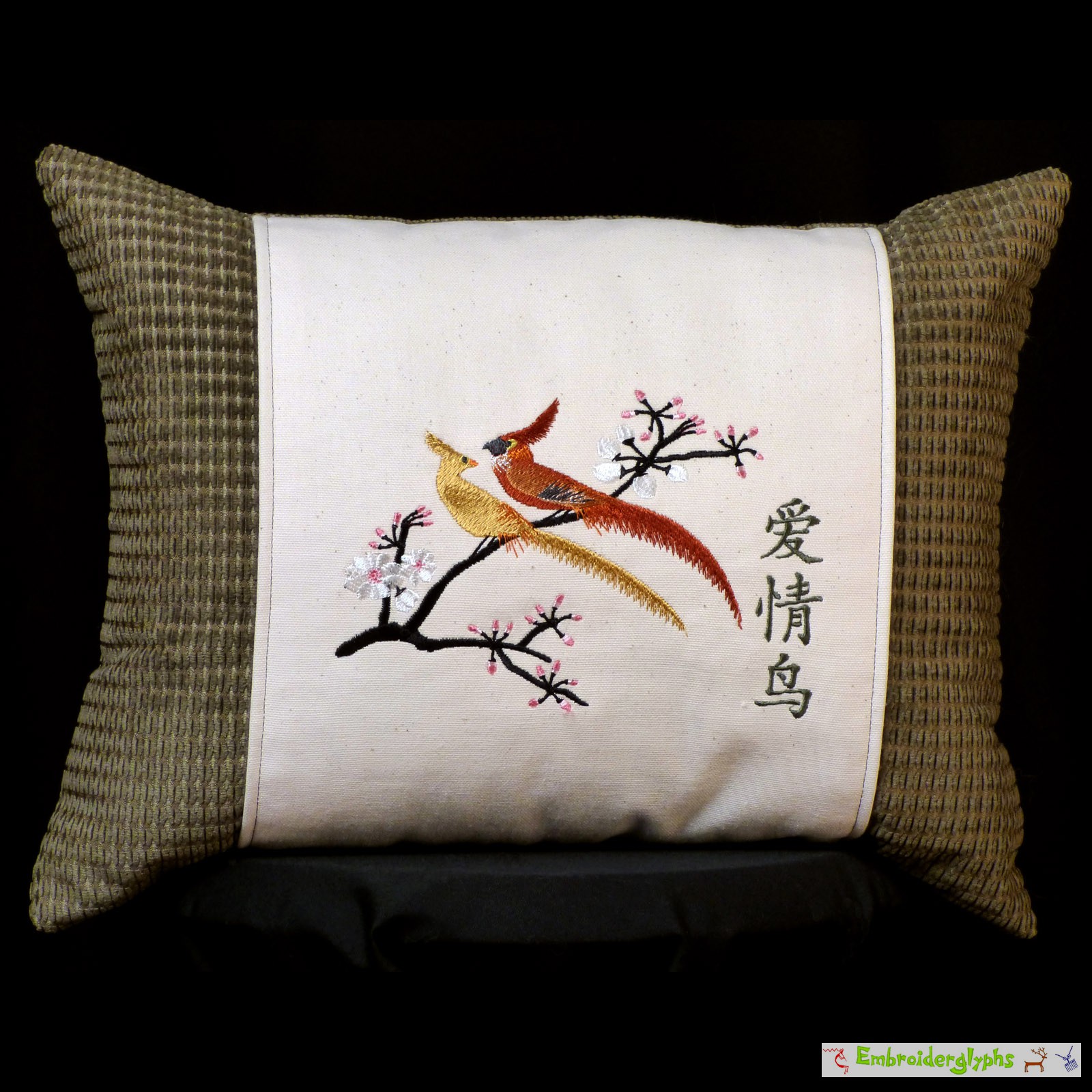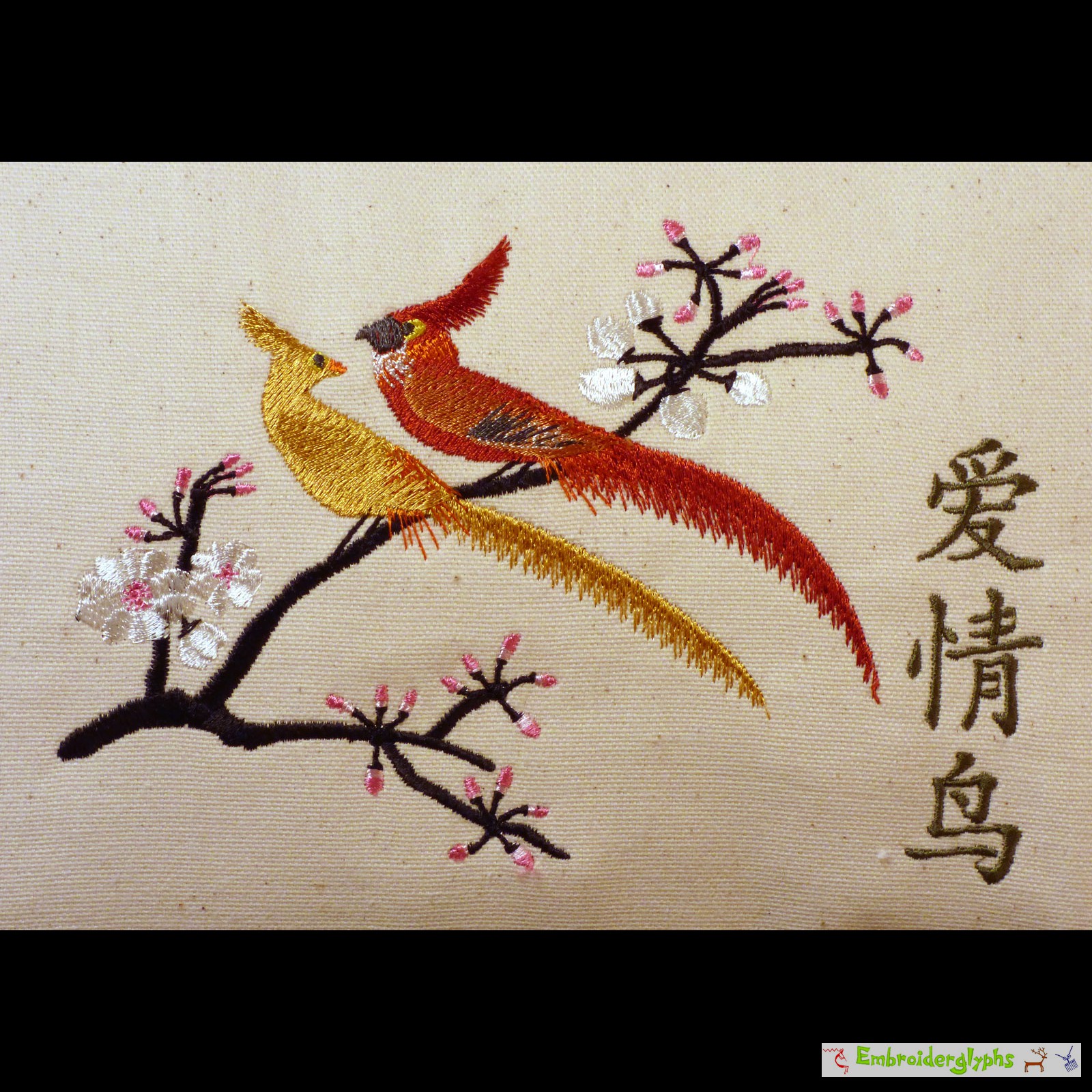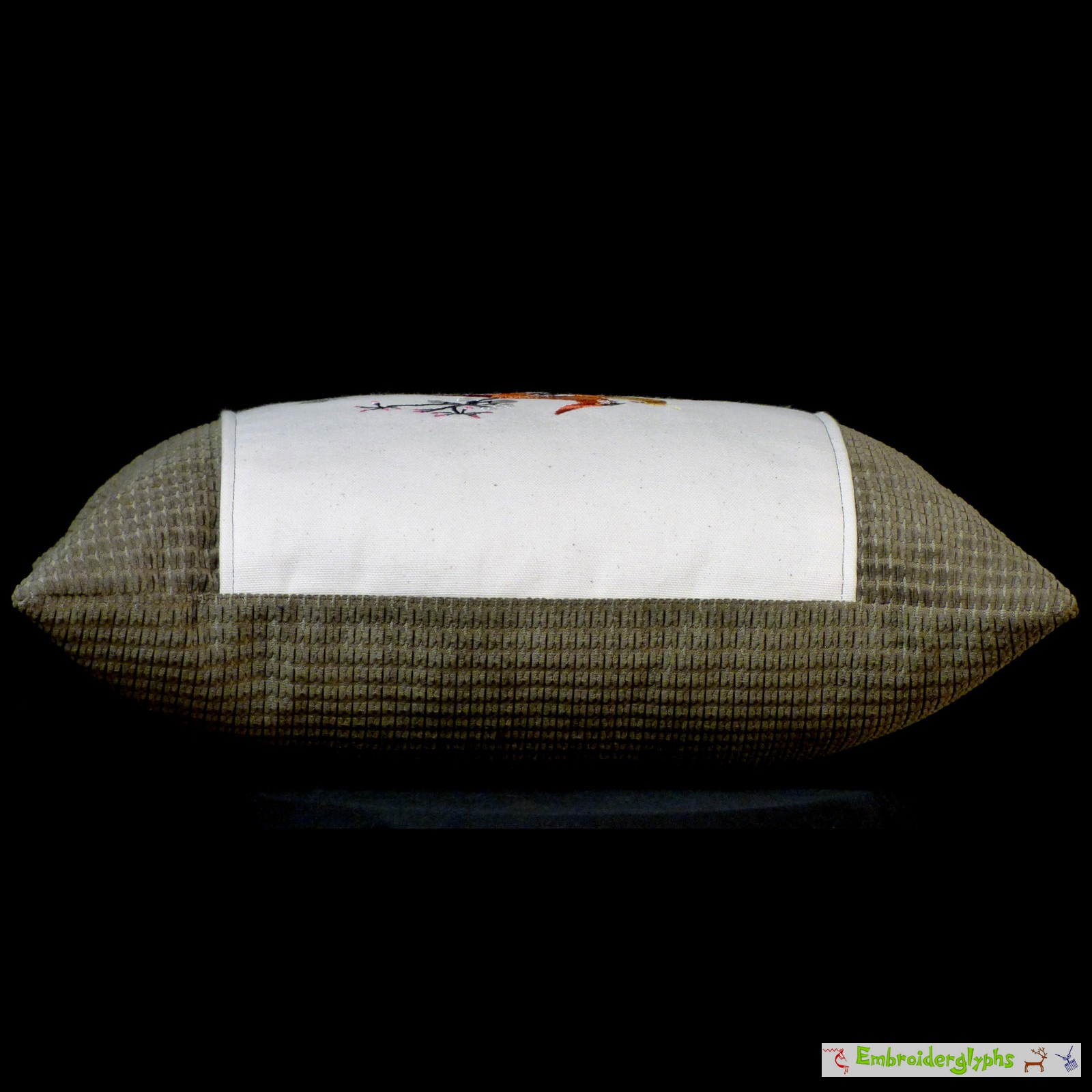
Green & Off-White Golden Pheasant Pillow with Chinese calligraphic script for "Love Birds"
This is a one-of-a-kind custom accent pillow. The design has an elegant oriental feel. It is traditional to paint and embroider love birds in China. This design has two Golden Pheasants on a branch of a Cherry tree, with cherry blossoms.
爱情鸟
Read from top to bottom, the chinese text translates as, “Love Birds” The first symbol is the character, 爱, “ài.” It translates: to love, affection, to be fond of, to like. The second symbol is the character, 情, “qíng.” It translates: feeling, emotion, passion. The third symbol is the chinese character for bird, 鸟 “niǎo.”
The particular calligraphic style is an elegant traditional style that works great for embroidery. It has nice curves, and digitizes well. This is not a machine font that is built into an embroidery machine. Each character has been digitized by hand. Each character's strokes actually stitches out in the correct order as if a professional Chinese calligrapher was drawing them.